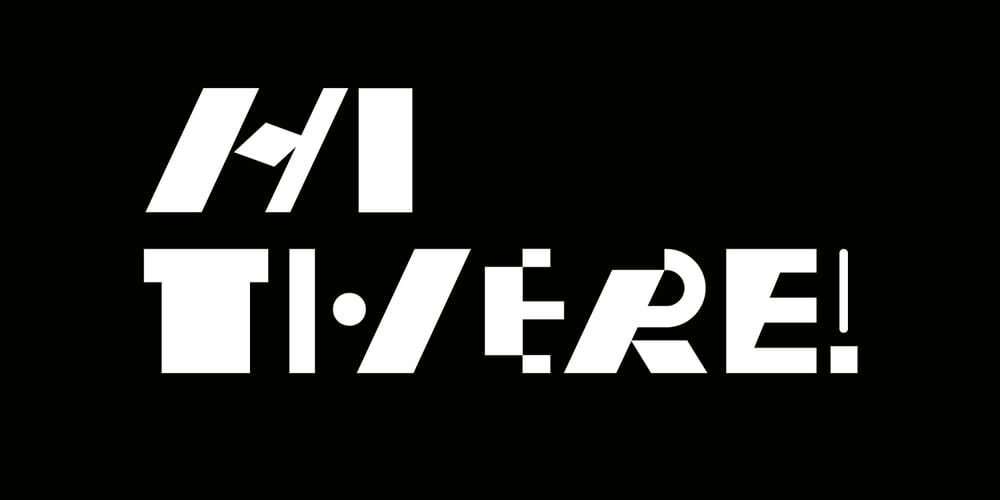
Malevich Font Family was designed by Olga Tereshenko and published by BBDO Studio. Malevich contains 1 styles and family package options. Hi! I am Black Square! Probably the most famous square in the world. Thanks to my godfather Kazimir Malevich, who created me in 1915, this year I am celebrating 100th anniversary. Let me tell you what a great gift I just got! It`s a family of almost 300 letters and symbols suprematic as suprematic can be – shapes, form attacks, booms and even hashtags! All under the name of Malevich Font. Isn`t it a great present for my anniversary? Thank You BBDO Ukraine